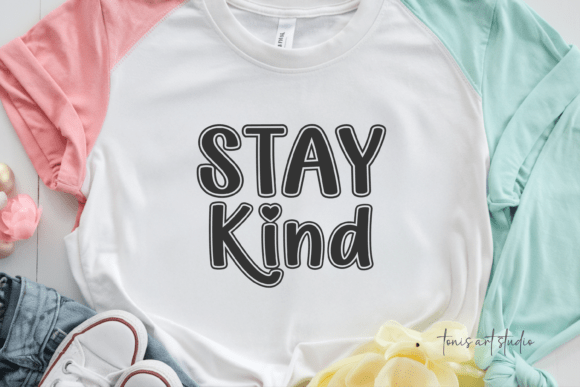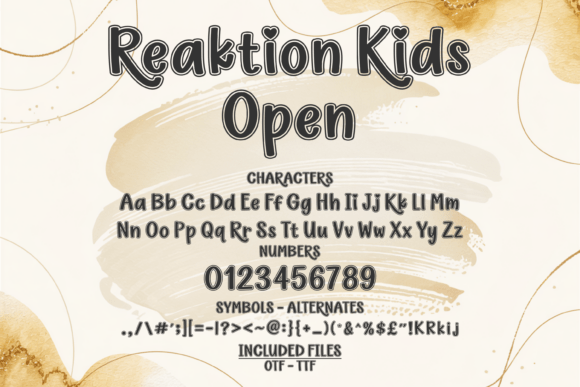
Introduction to Reaktion Kids Open Font Font
Fonts play a crucial role in design, and the Reaktion Kids Open Font font is a typeface that brings both character and versatility to any project. Whether you’re working on a branding project, a website, or a print design, the Reaktion Kids Open Font font offers a unique style that can elevate your work.
Reaktion Kids Open is a playful, layered-style handwritten font created for fun, cheerful kids’ designs.
With bold outer shapes and open inner spaces, this font delivers a modern, eye-catching look while keeping a soft and friendly personality It is perfect for layered text, cut projects, and designs that need extra depth and contrast.
Key Features of Reaktion Kids Open Font Font
Why Choose Reaktion Kids Open Font Font?
The Reaktion Kids Open Font font is more than just a typeface – it’s a design tool that helps you communicate your message with style and clarity. Its unique character set and versatile design make it suitable for a wide range of applications, from elegant invitations to bold headlines.
With its carefully crafted letterforms and balanced proportions, the Reaktion Kids Open Font font ensures readability and visual appeal across all mediums.
What makes Reaktion Kids Open Font font special?
The Reaktion Kids Open Font font stands out with its unique design, exceptional readability, and versatility across various design applications.